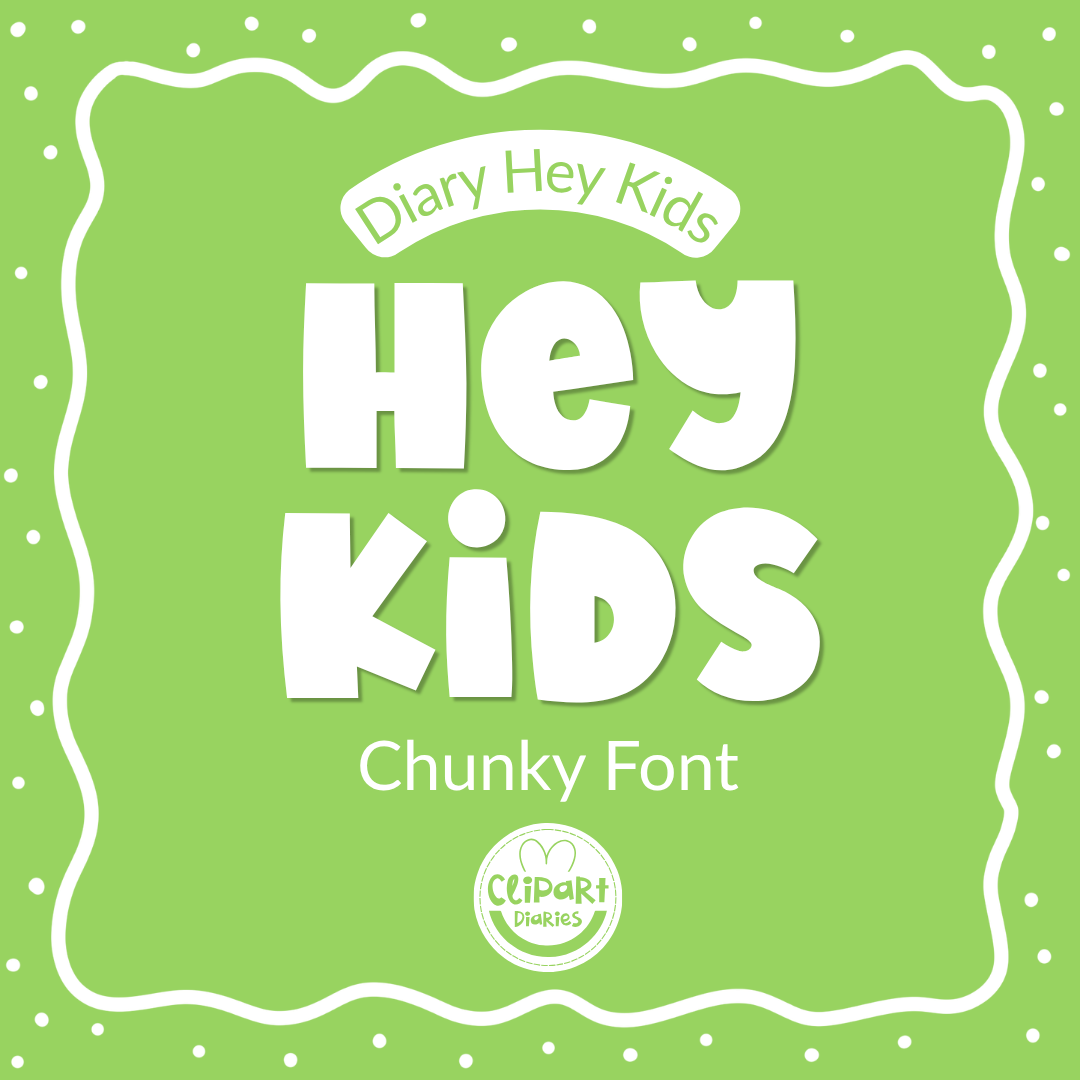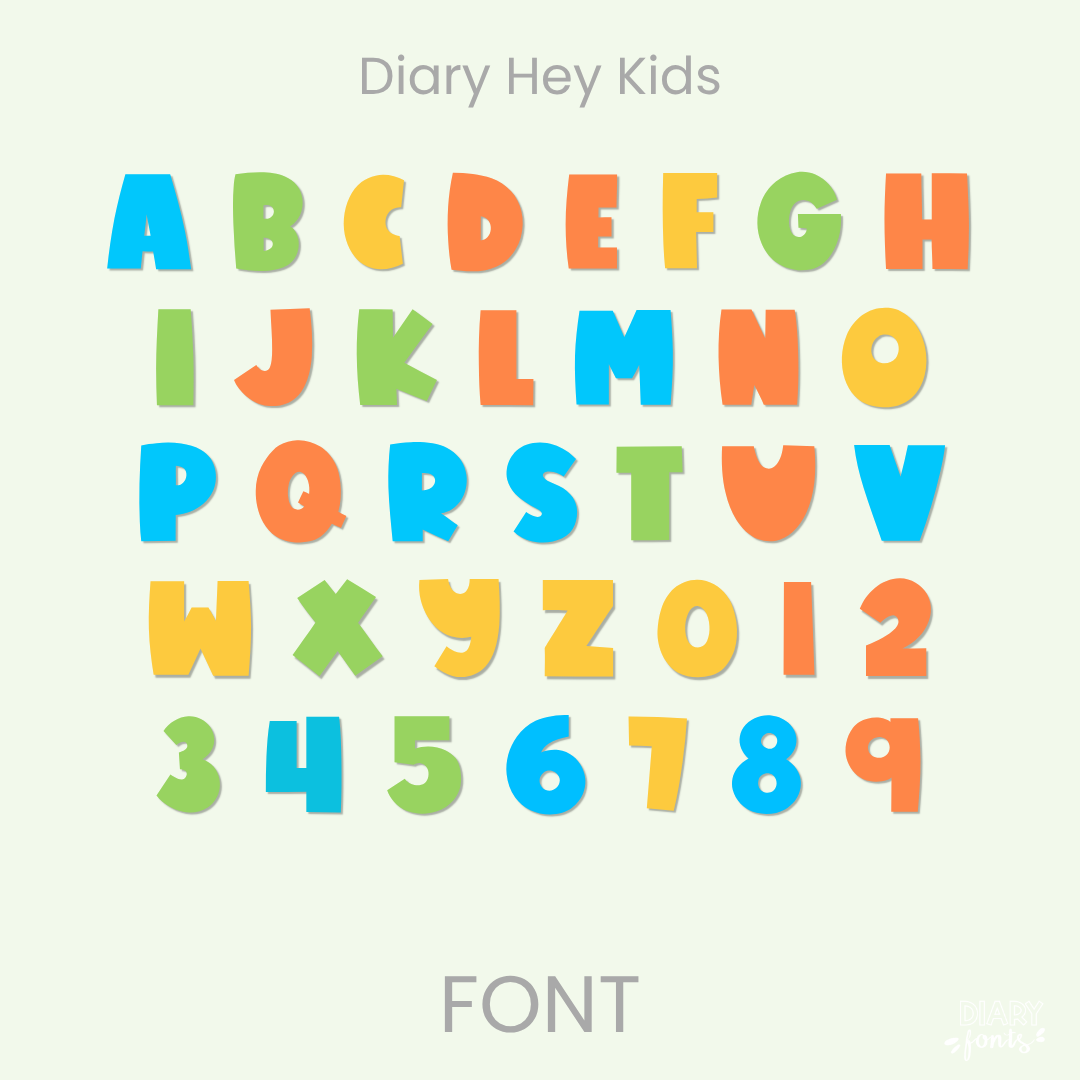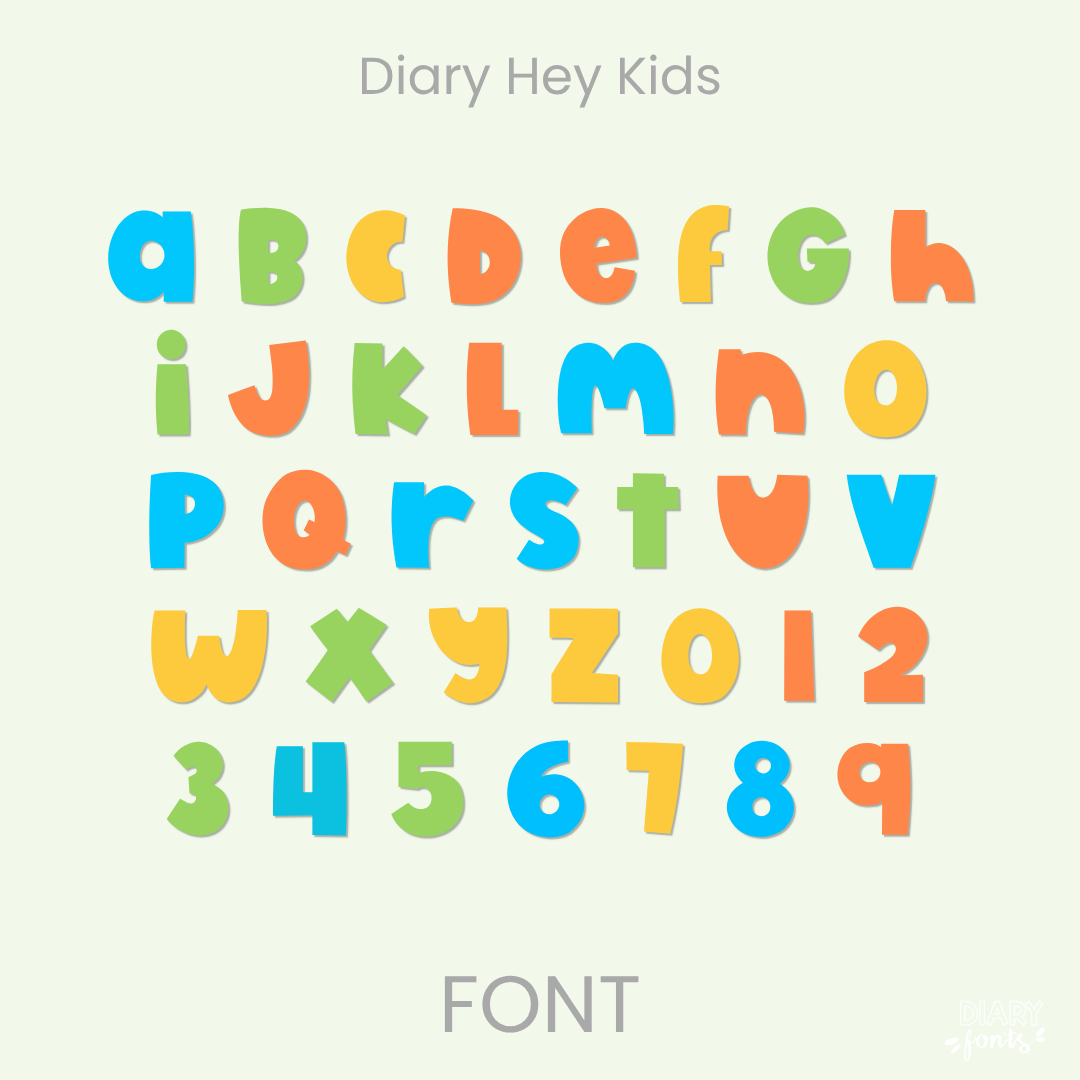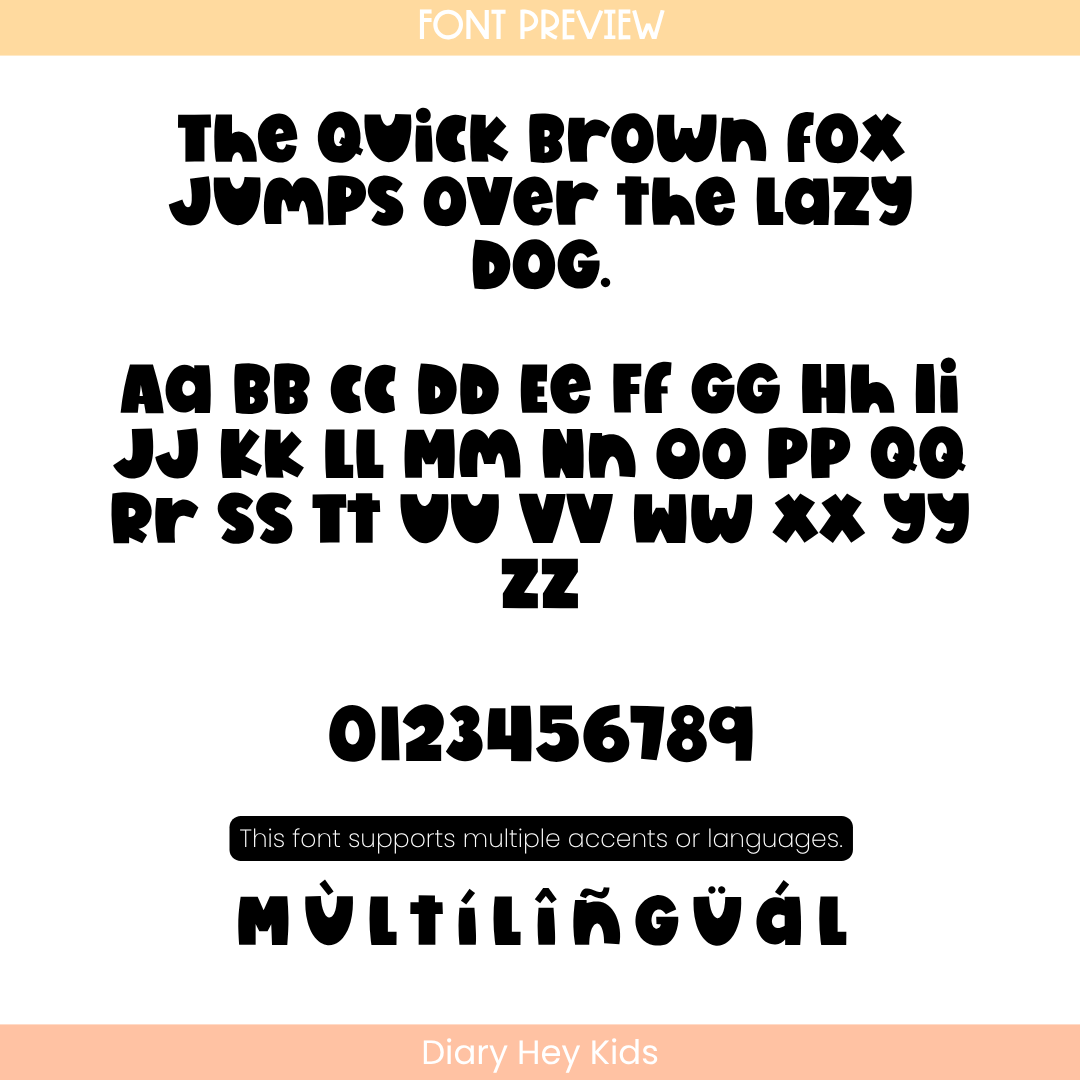
If you want to give your teaching materials a fun and attention-grabbing presence, Diary Hey Kids is an excellent choice. It features thick, blocky, chunky, hand-drawn character forms with a delightful, chunky layout style. This font mixes heavy uppercase shapes across both sets of keys, combining a bold visual punch with an informal, hand-crafted rhythm. Because it remains perfectly upright and exceptionally clear, it is optimized for standout headings, printable task cards, bulletin boards, and cover pages where you need maximum legibility from across a classroom. The font includes a full set of alphabet characters, numbers, and multiple accents for complete multilingual support. It installs quickly and works smoothly across Canva, MS Office, Adobe Apps, and on the iPad with Procreate and GoodNotes. Whether you are designing personal classroom decorations or commercial teacher resources, this typeface adds a bold, approachable, and friendly aesthetic to your work.